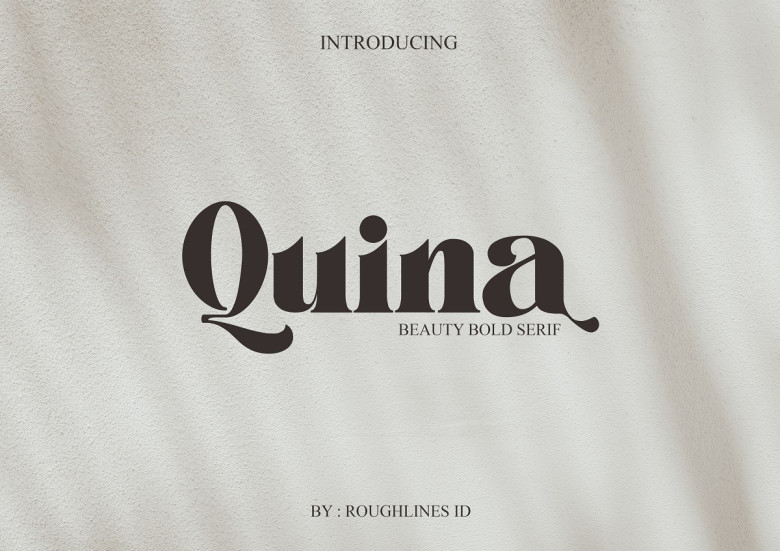
Quina Font
Introducing Quina was a stylish, bold and authentic serif font. It is PUA encoded which means you can access all of the glyphs and swashes with ease! Add Quina to your favorite creations confidently and you will be love with the results.
Quina Serif Font